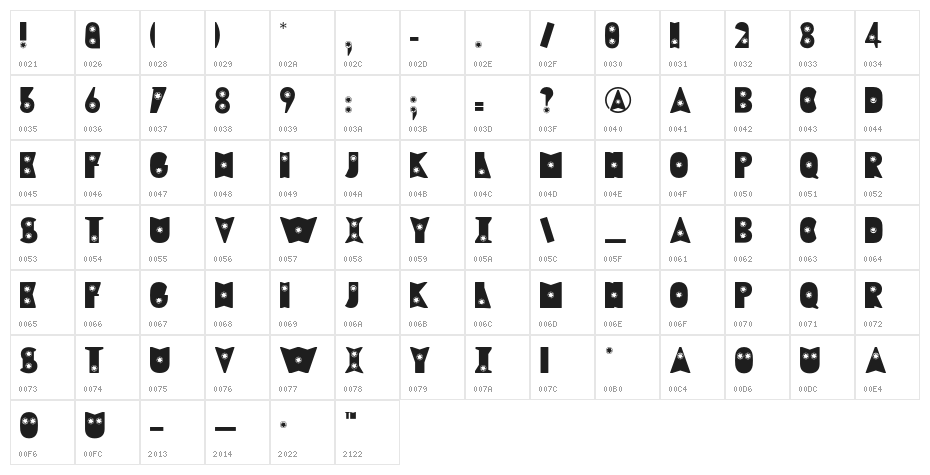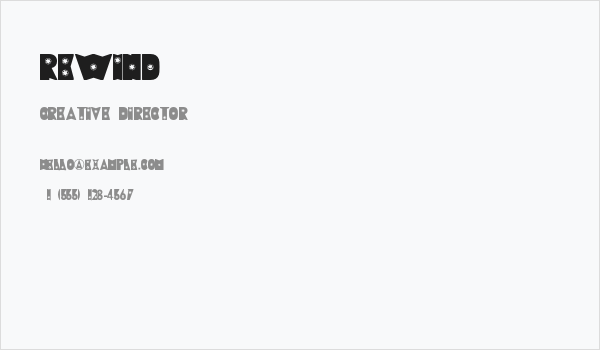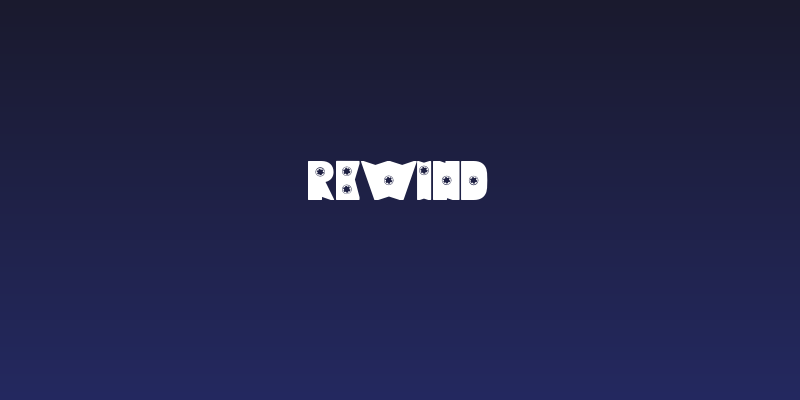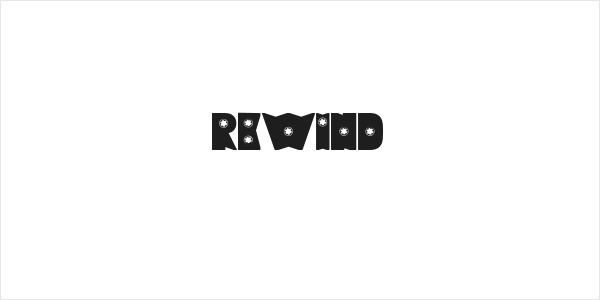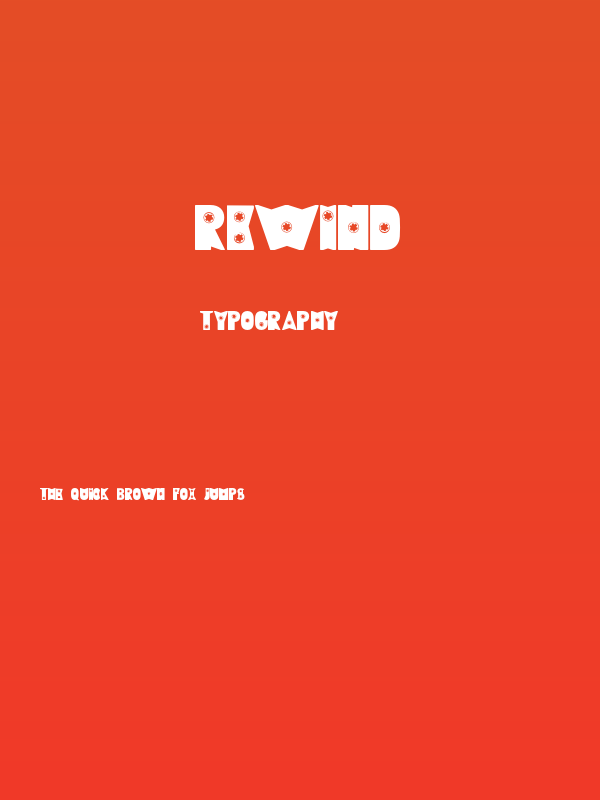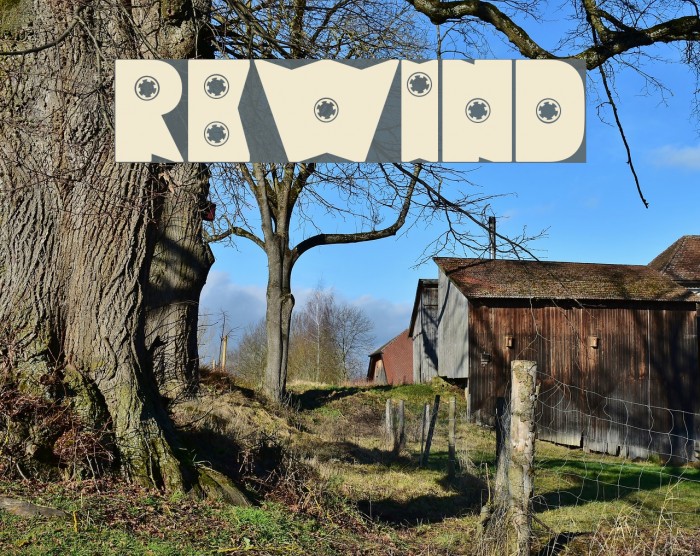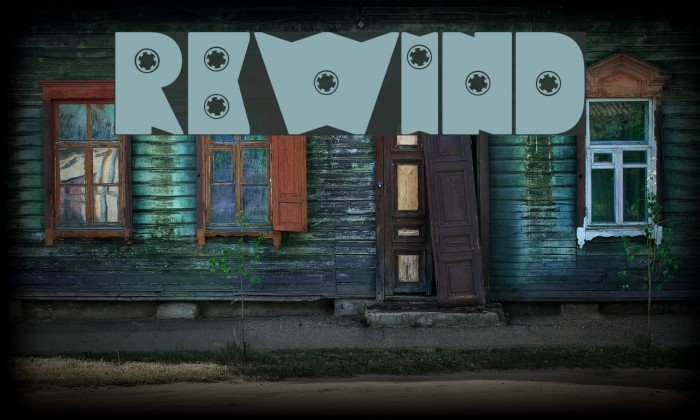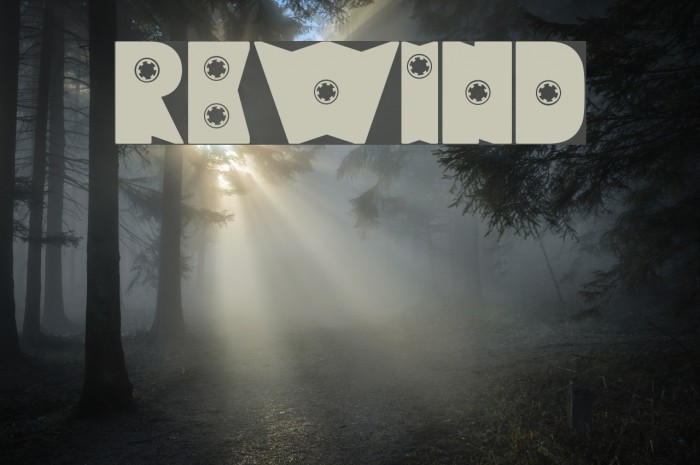
Rewind Font
Rewind Description
This font features a bold and playful design with a unique star pattern embedded within each character. The letters are blocky and geometric, giving them a strong presence. The uppercase and lowercase letters maintain a consistent style, with rounded edges and a uniform thickness. The numbers and special characters follow the same design principles, ensuring a cohesive look across all elements. The star motif adds a whimsical touch, making it ideal for creative and fun projects.
| Overall Style | Playful, Whimsical |
| Proposed Projects | Ideal for children's books, playful branding, party invitations, and creative posters. |